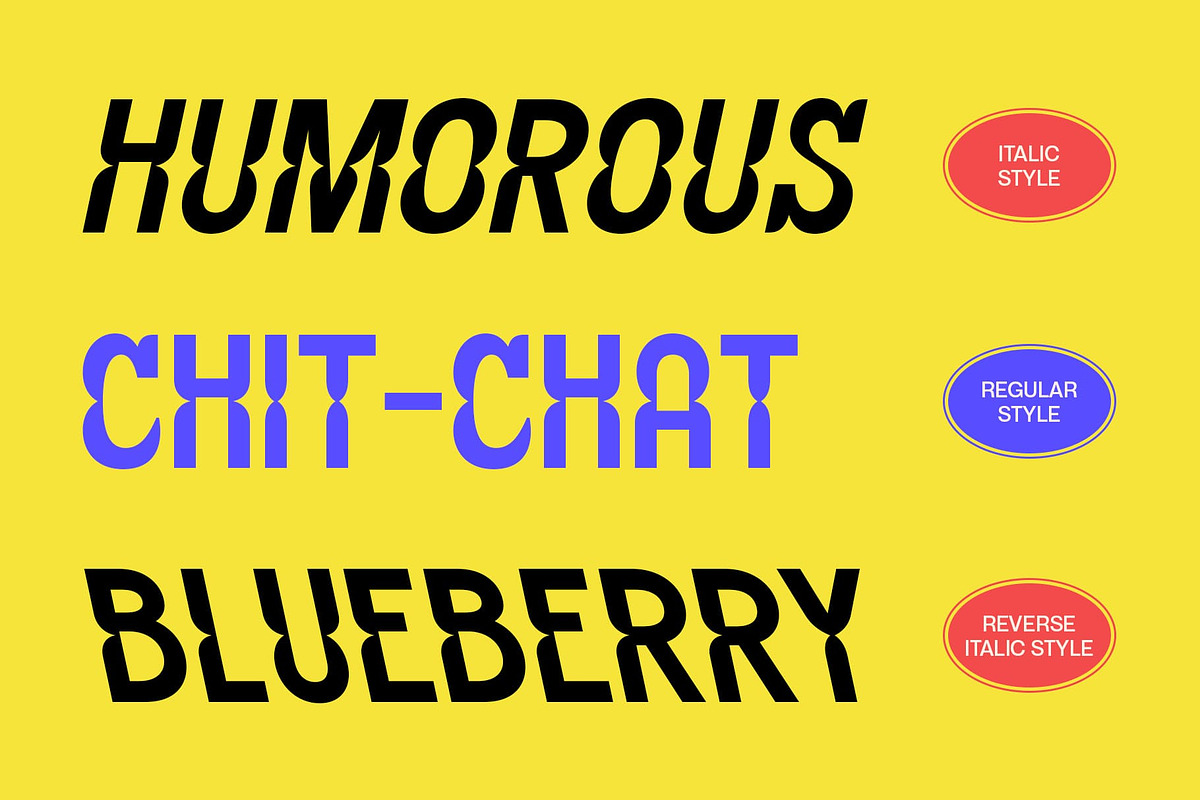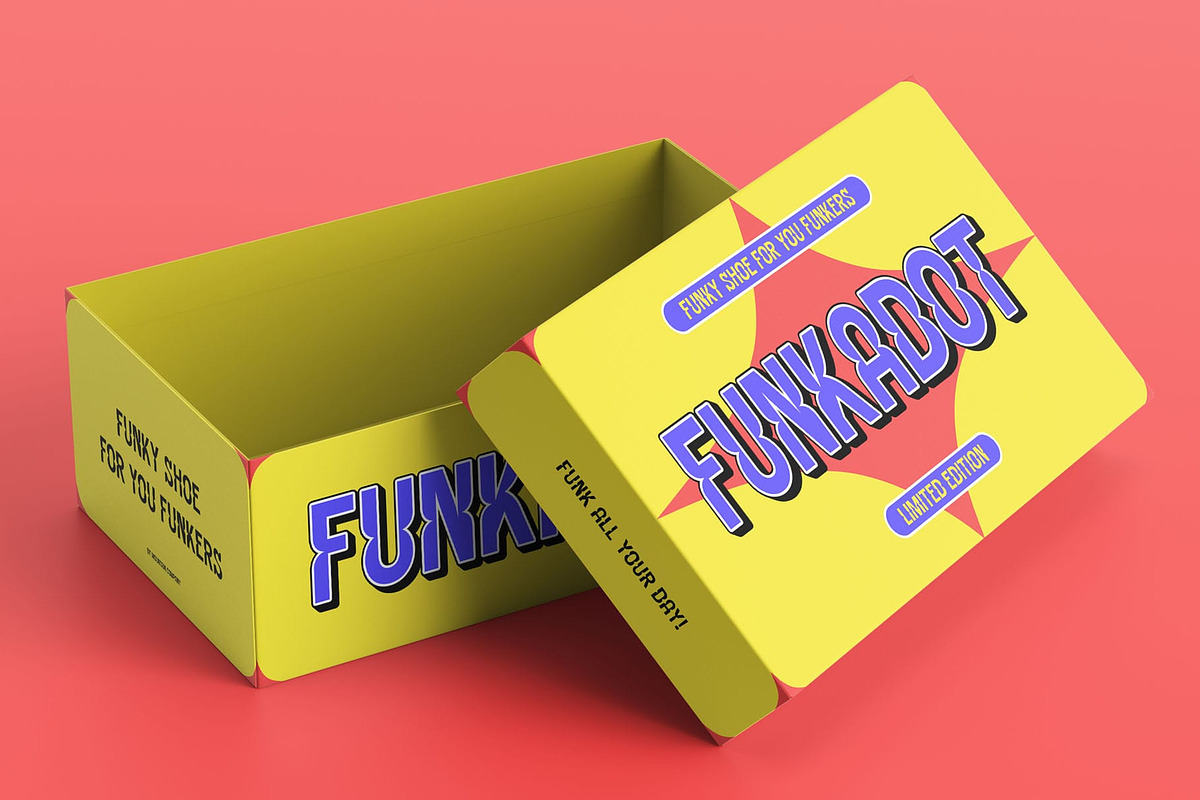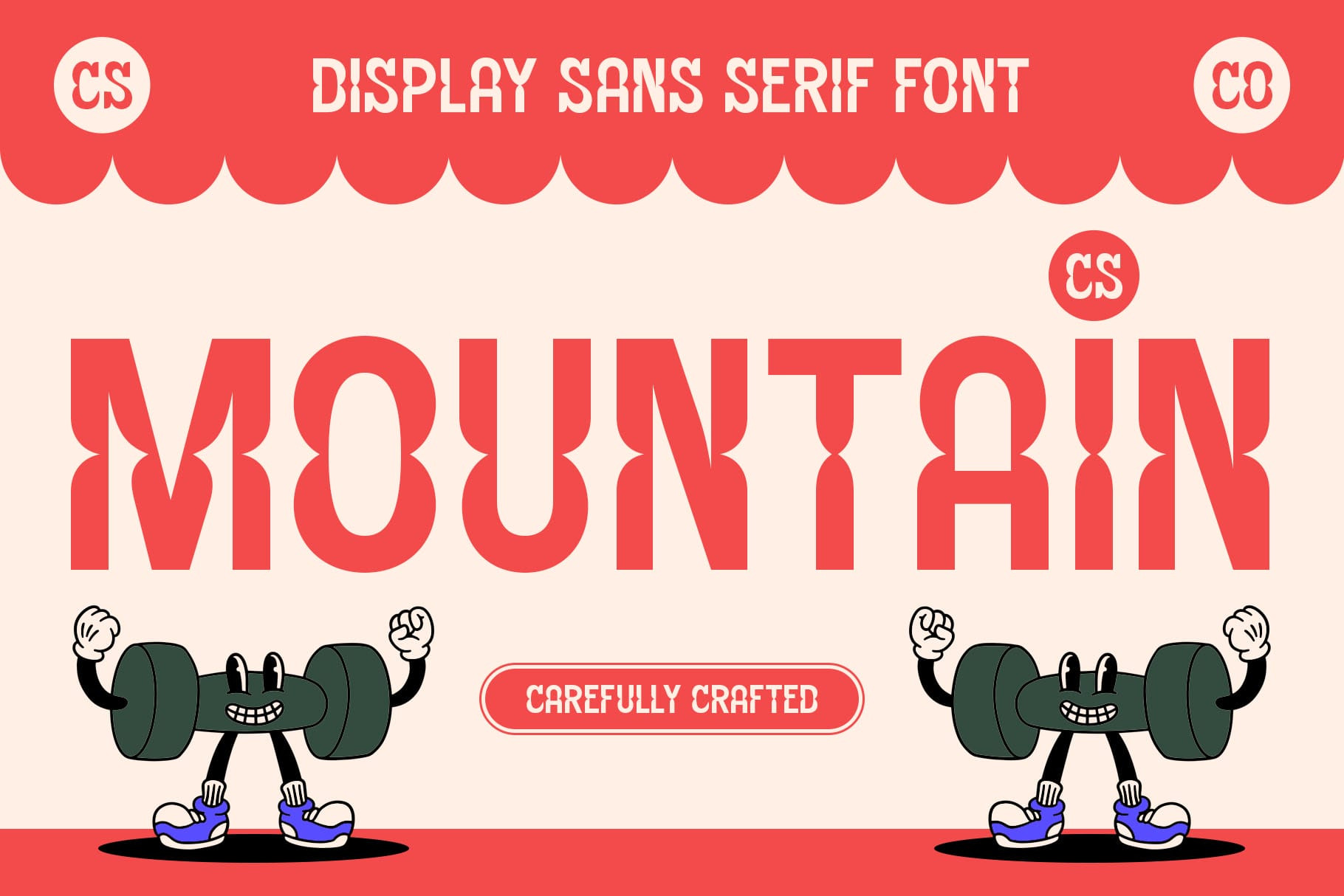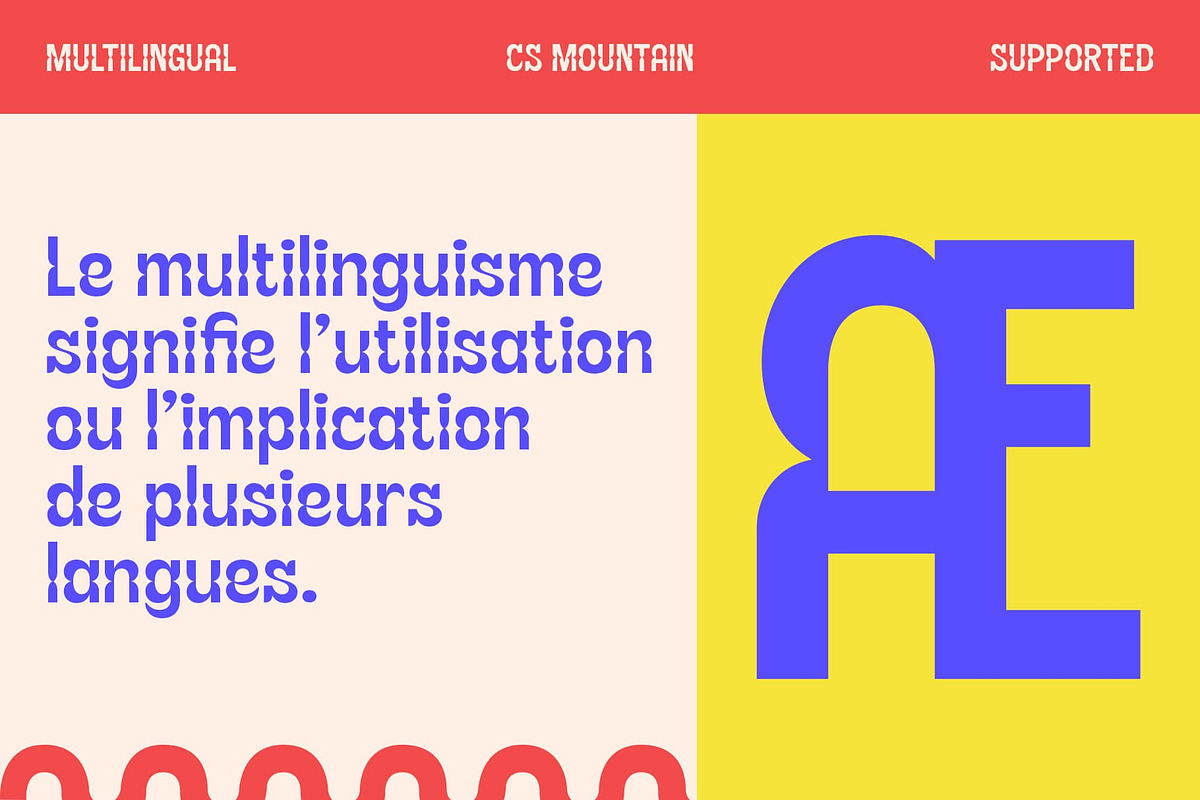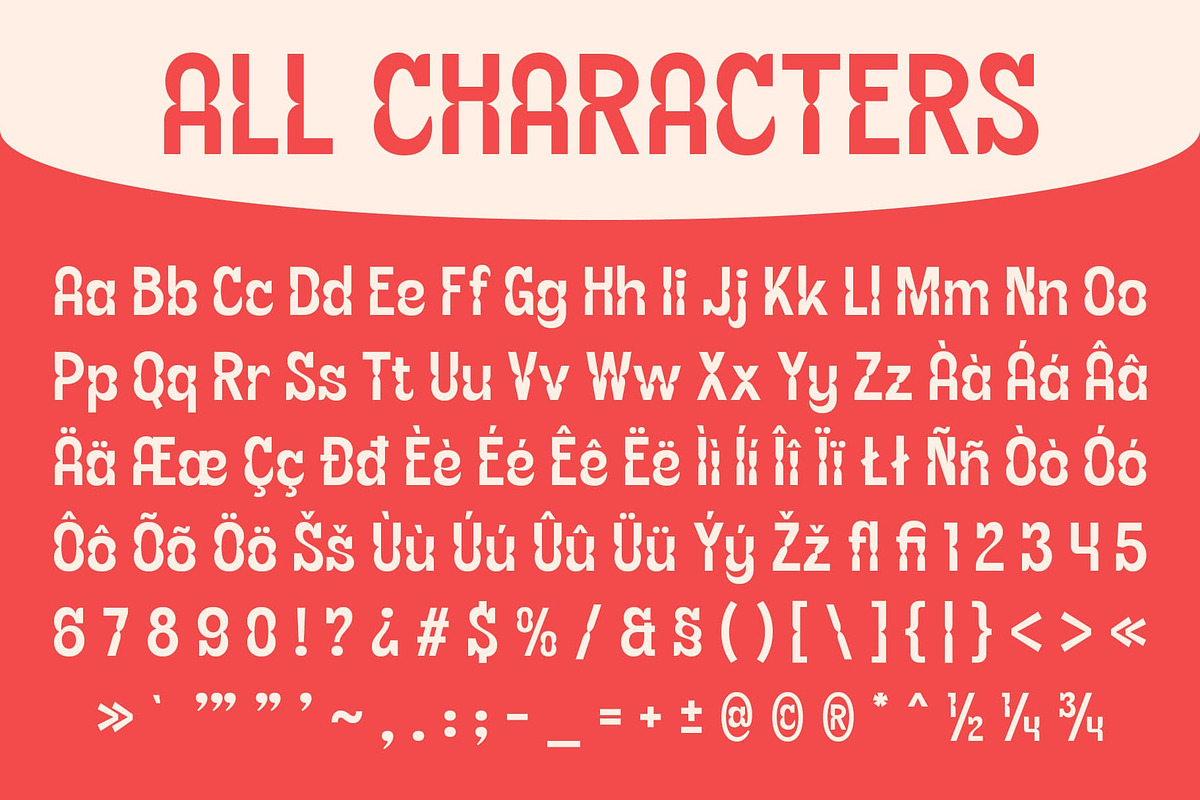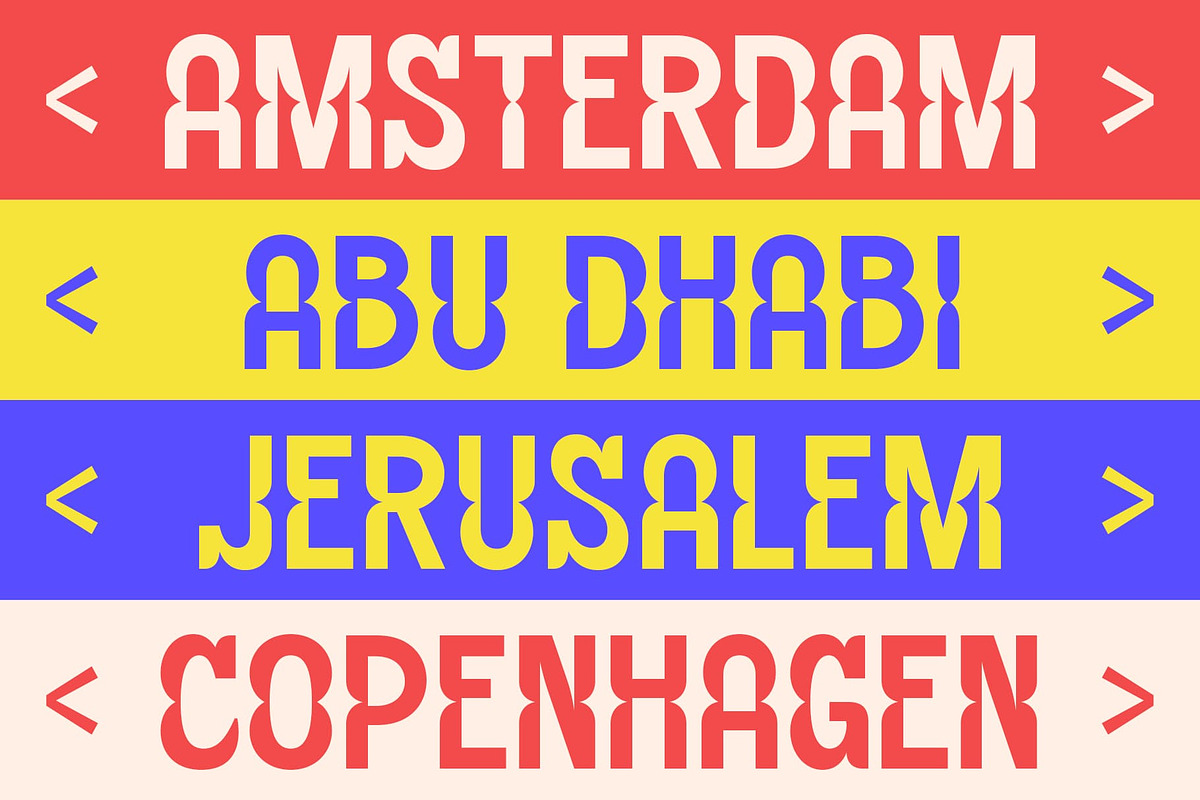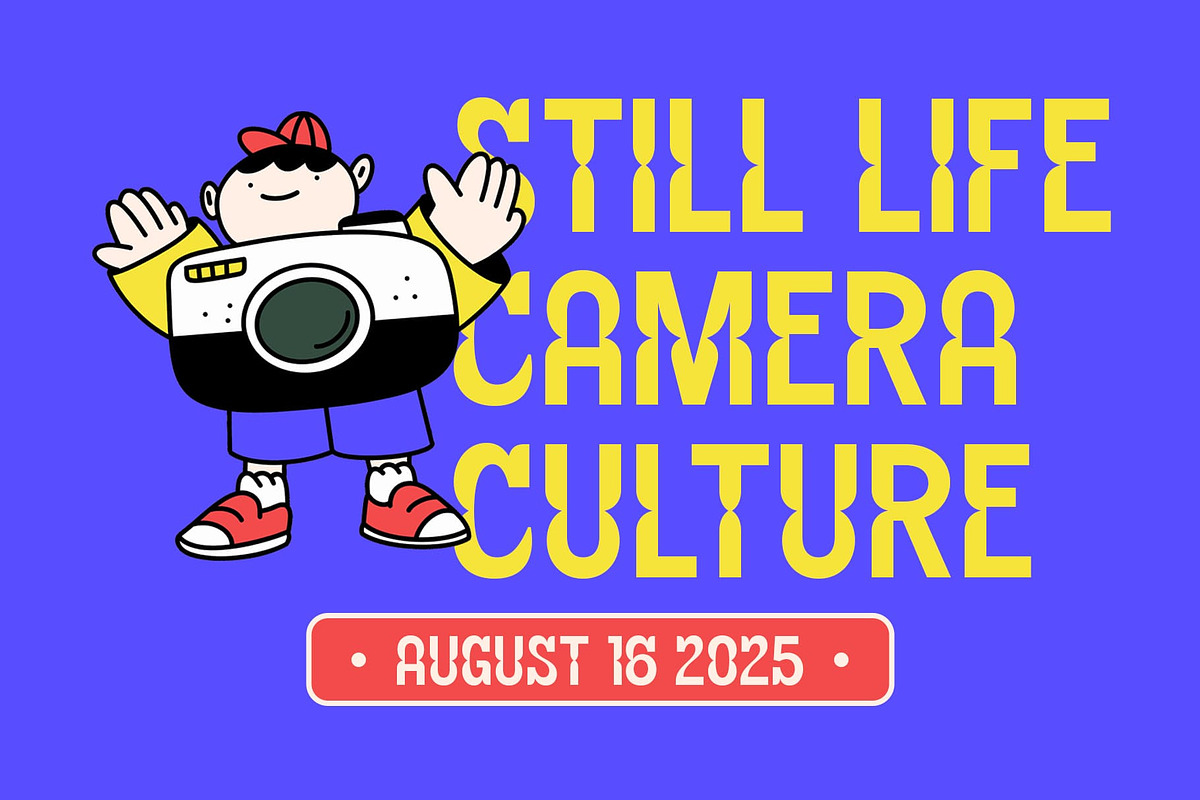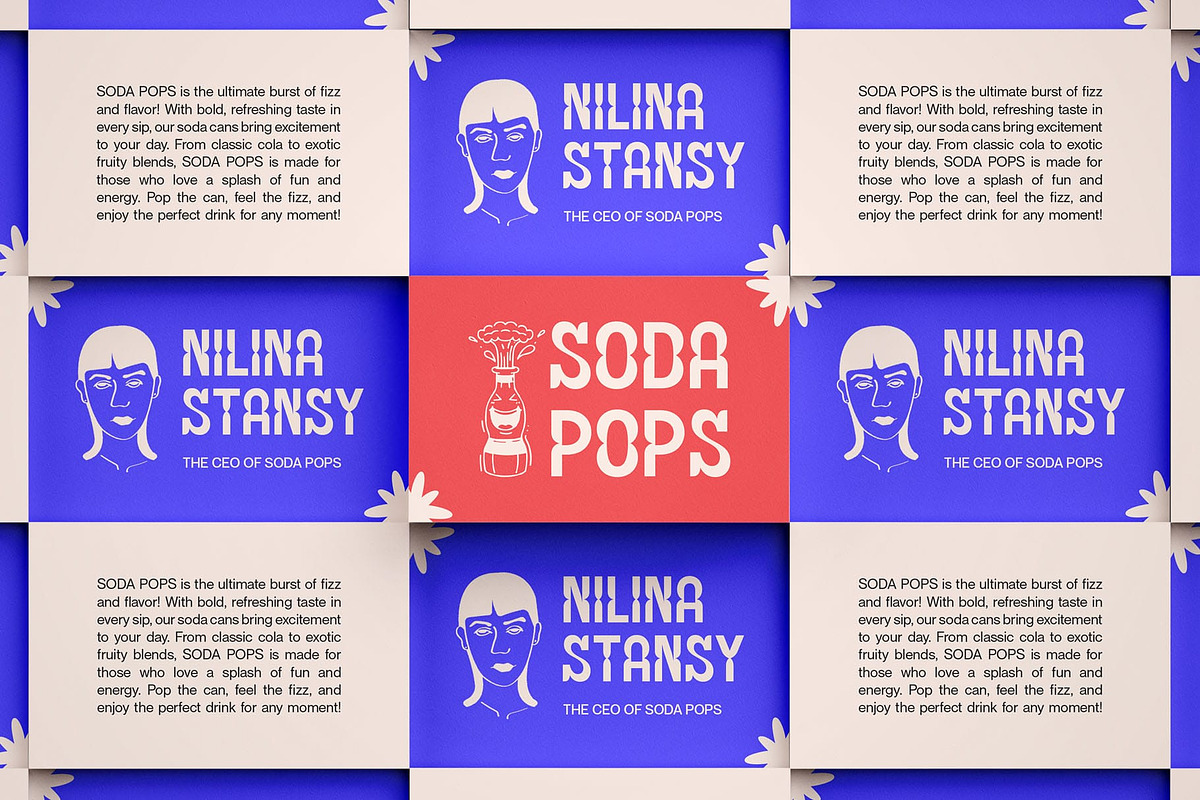
CS Mountain – Decorative Font
CS Mountain – A Bold & Expressive Decorative Font
A Funky & Dynamic Typeface for Creative Expression CS Mountain is a modern sans-serif display font with distinctive decorative elements, designed to bring energy and bold personality to any project. Featuring unconventional letterforms, playful curves, and expressive details, this font exudes a strong, charismatic presence that makes it instantly eye-catching. Whether used for branding, posters, packaging, or artistic designs, its vibrant and dynamic style ensures a striking and unforgettable look.
Perfect for Bold & Standout Designs With its modern yet artistic structure, CS Mountain is perfect for logos, festival graphics, album covers, and creative campaigns that demand uniqueness and flair. The decorative elements add an experimental and free-spirited charm, making it an excellent choice for projects that aim to be fun, loud, and unconventional.
Make a Statement with a Unique Visual Identity If you’re looking for a strong, funky, and energetic typeface that commands attention while keeping a modern edge, CS Mountain is the perfect fit. Whether used in print or digital media, this font guarantees an expressive and artistic appeal, ideal for those who want their designs to stand out and leave a lasting impression.
- CS Mountain Regular
- CS Mountain Italic
- CS Mountain Reverse Italic